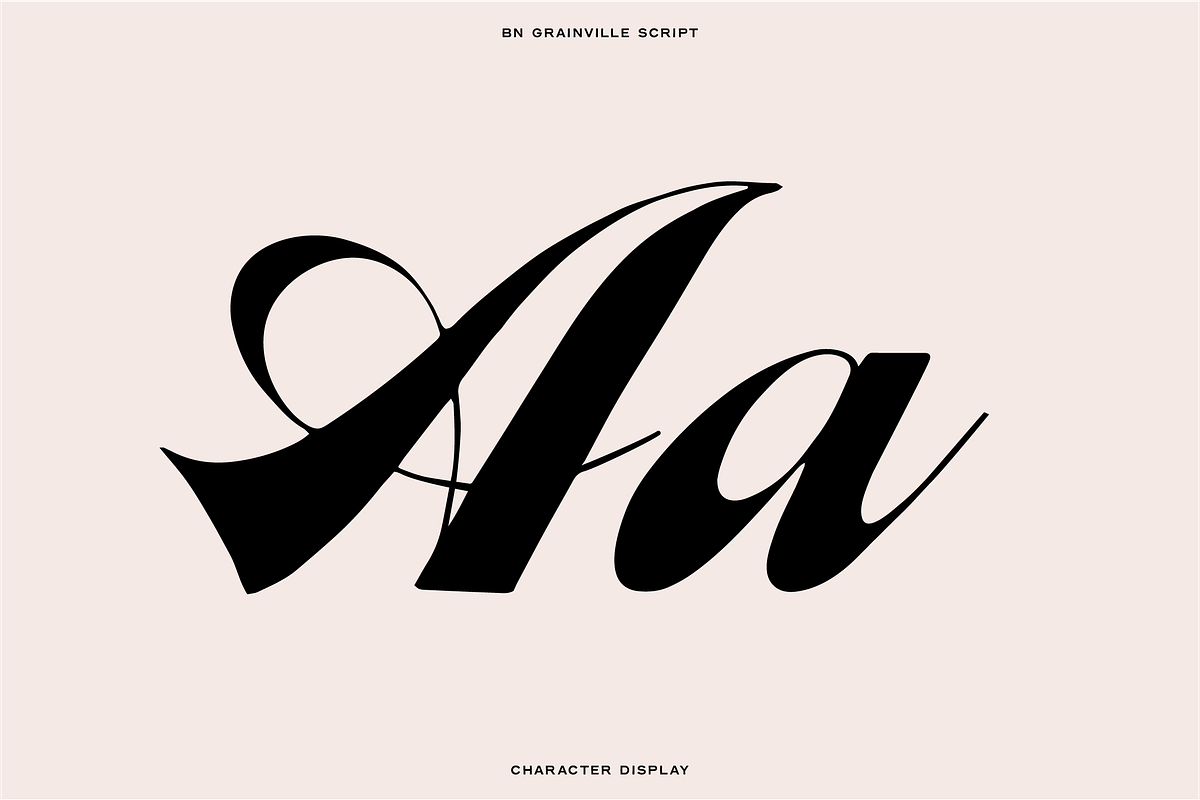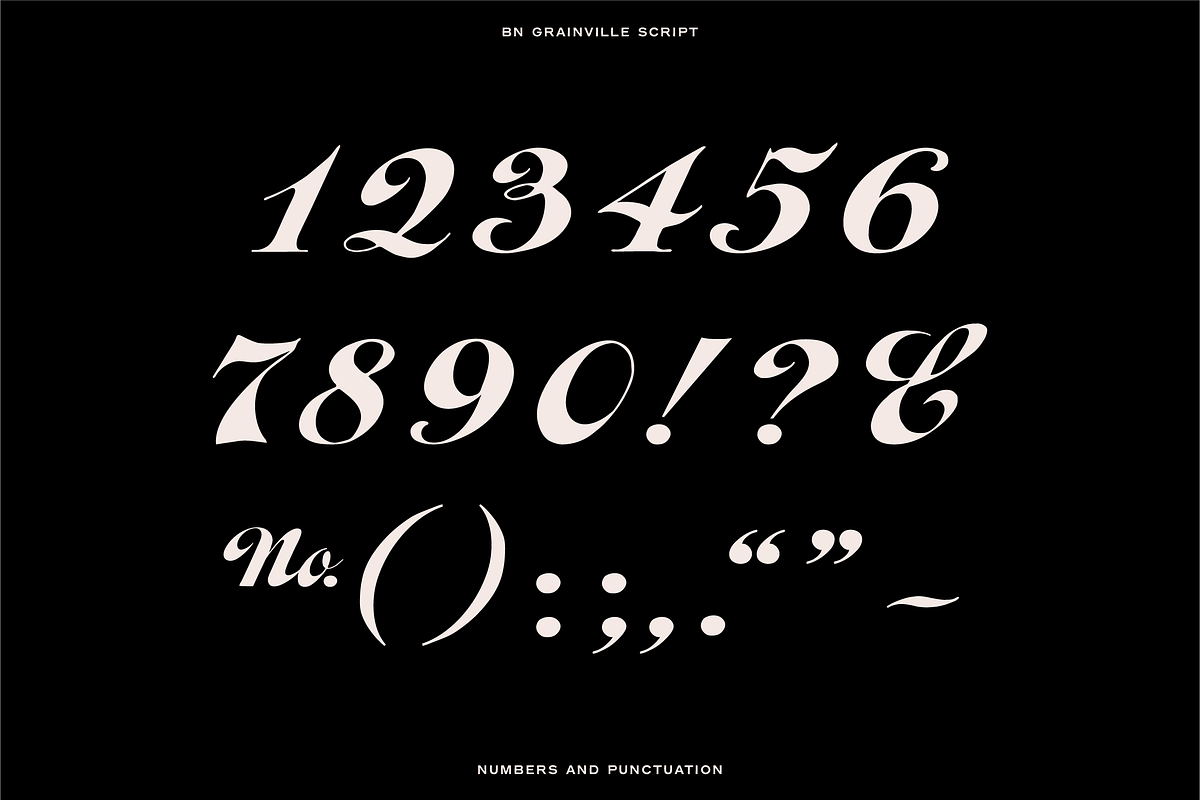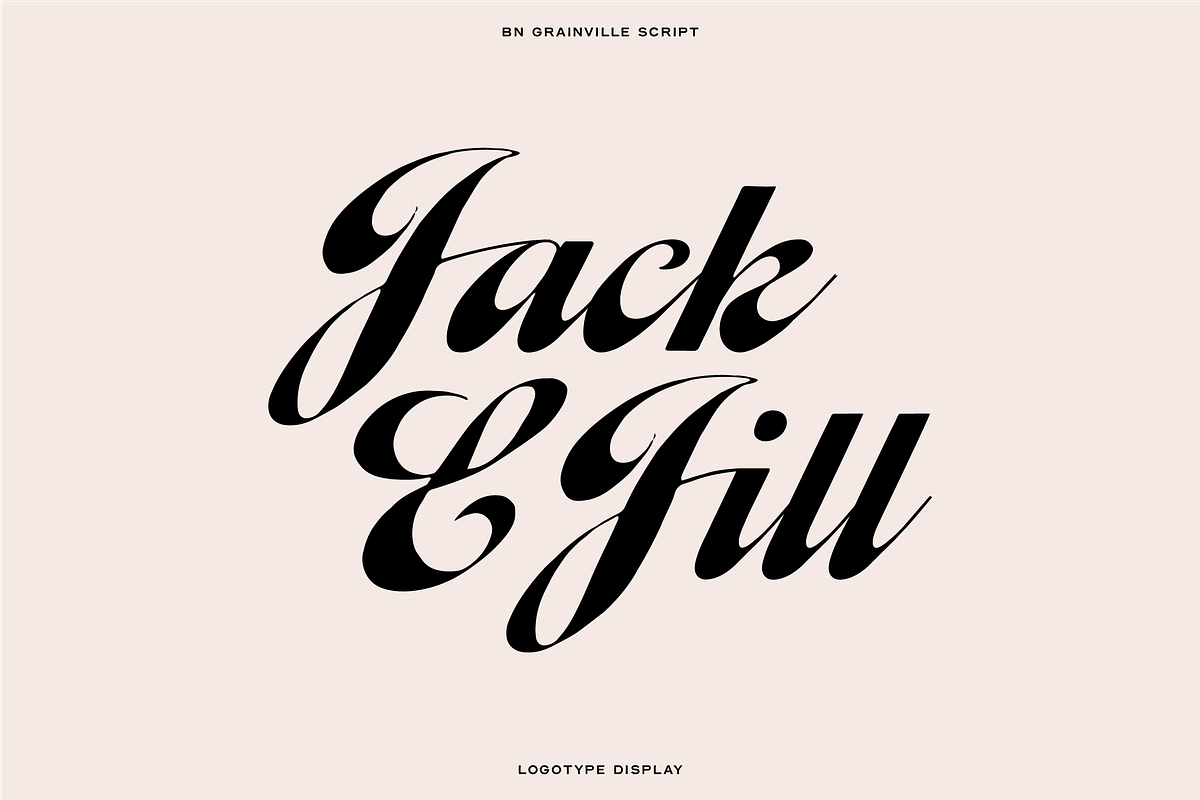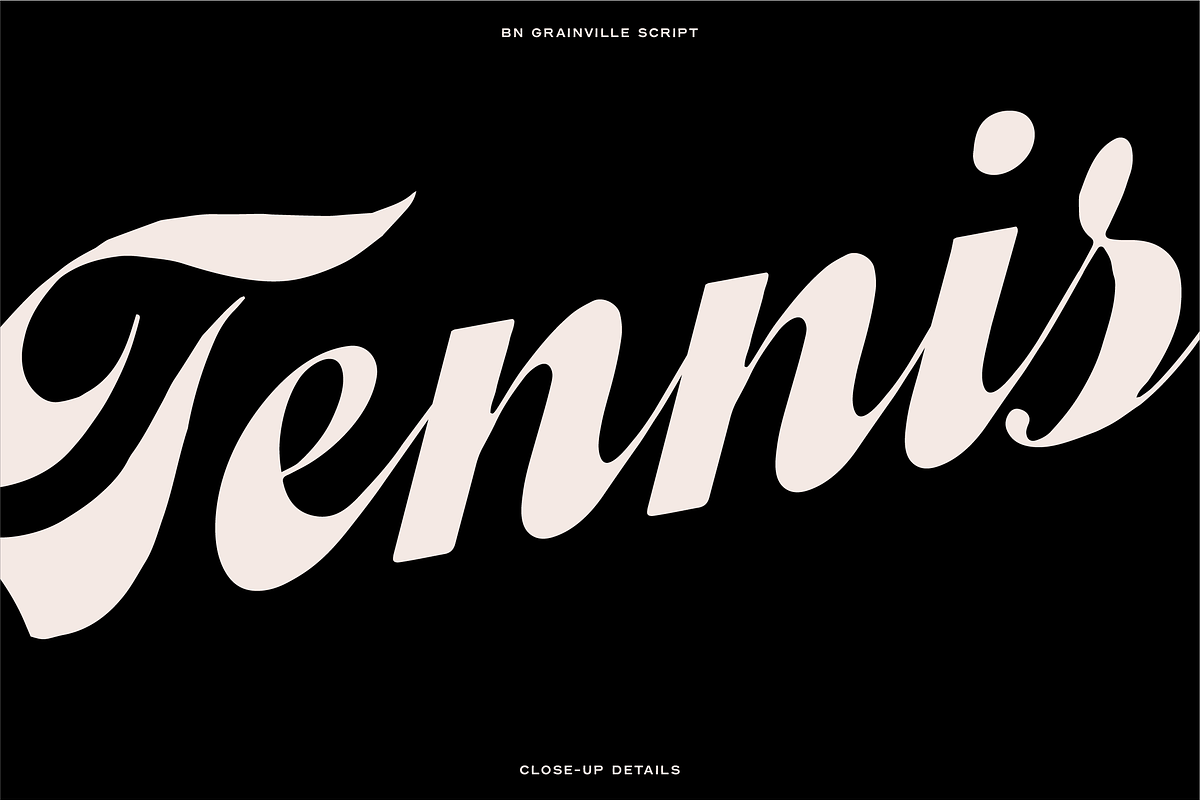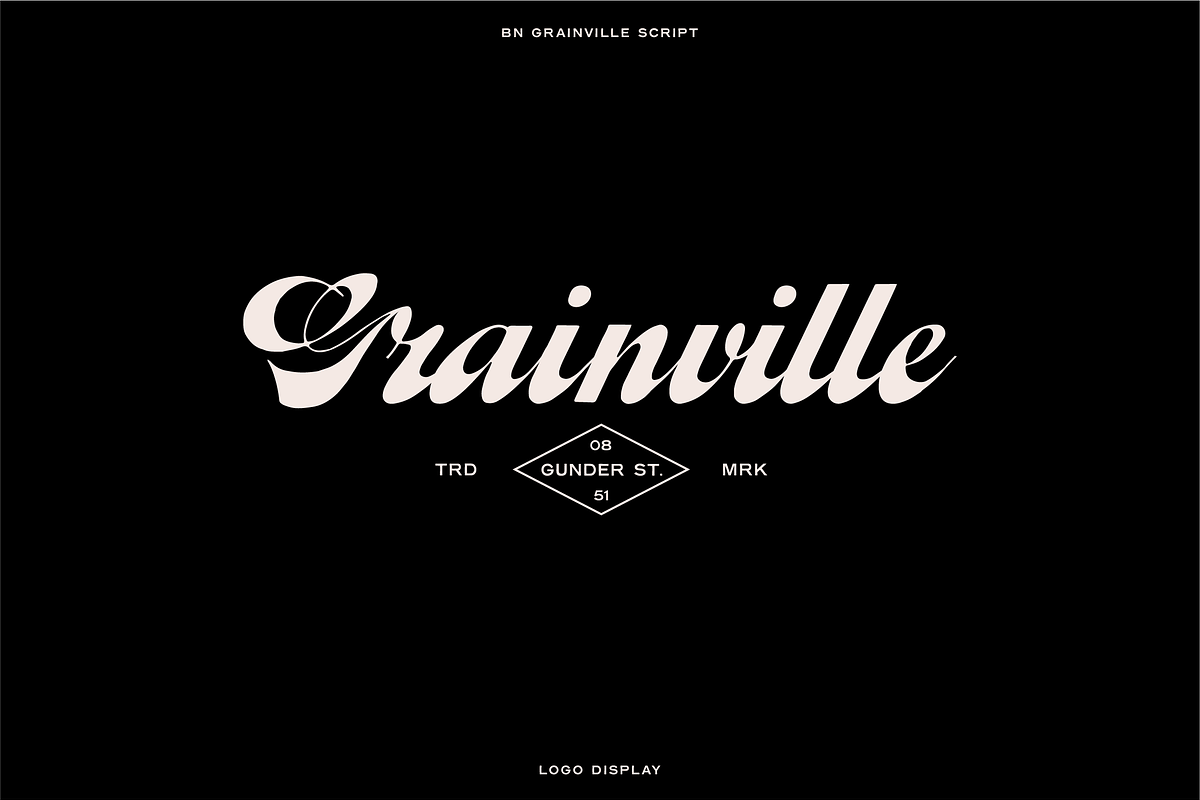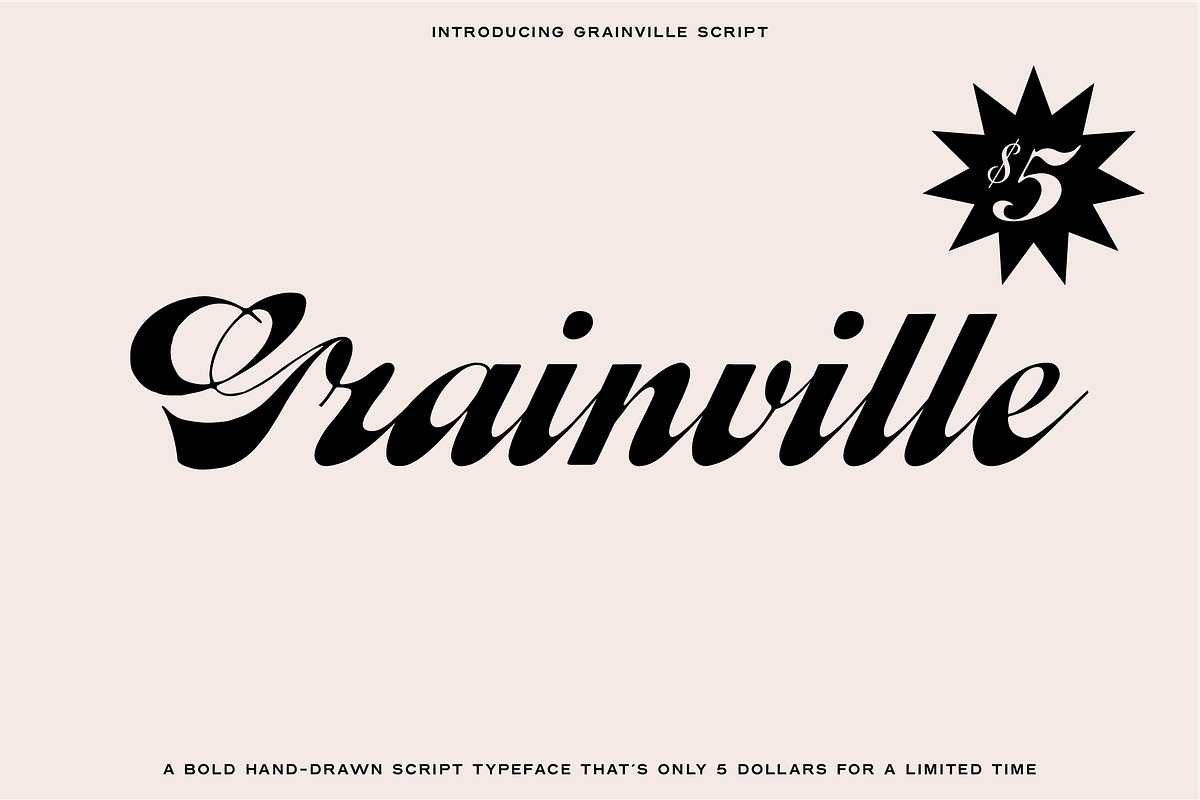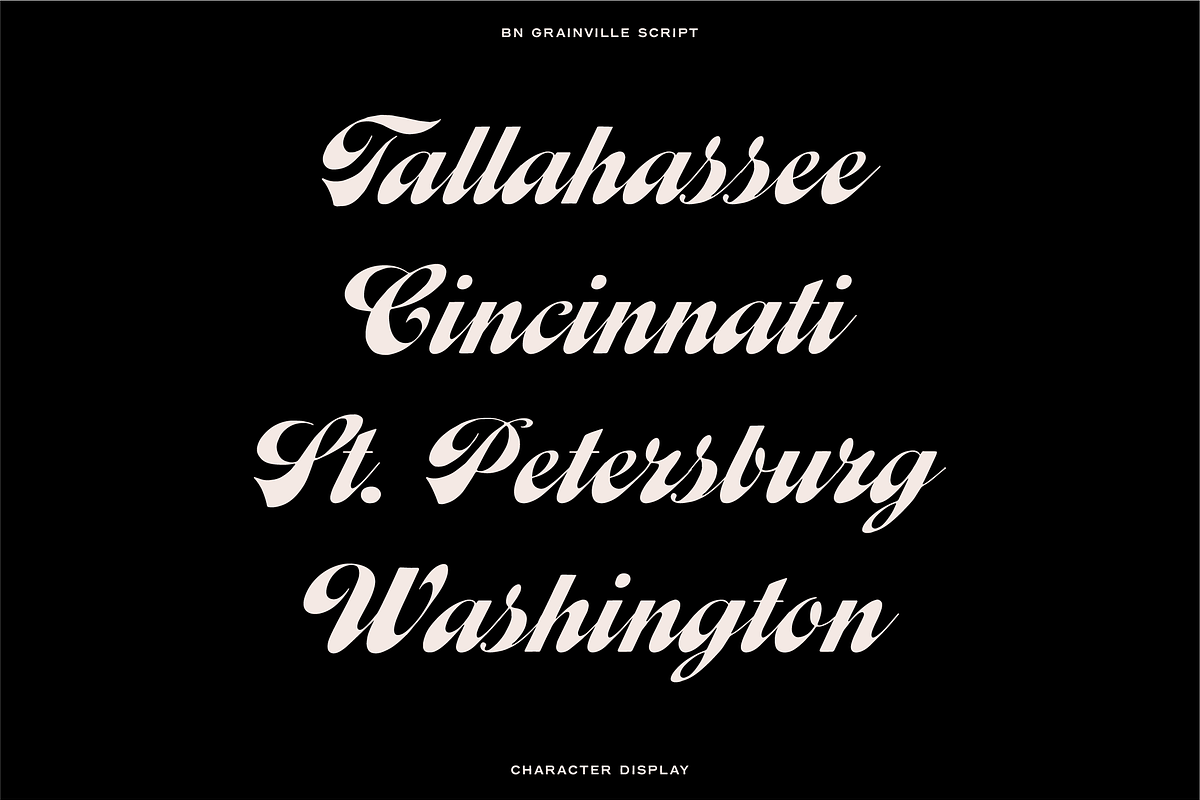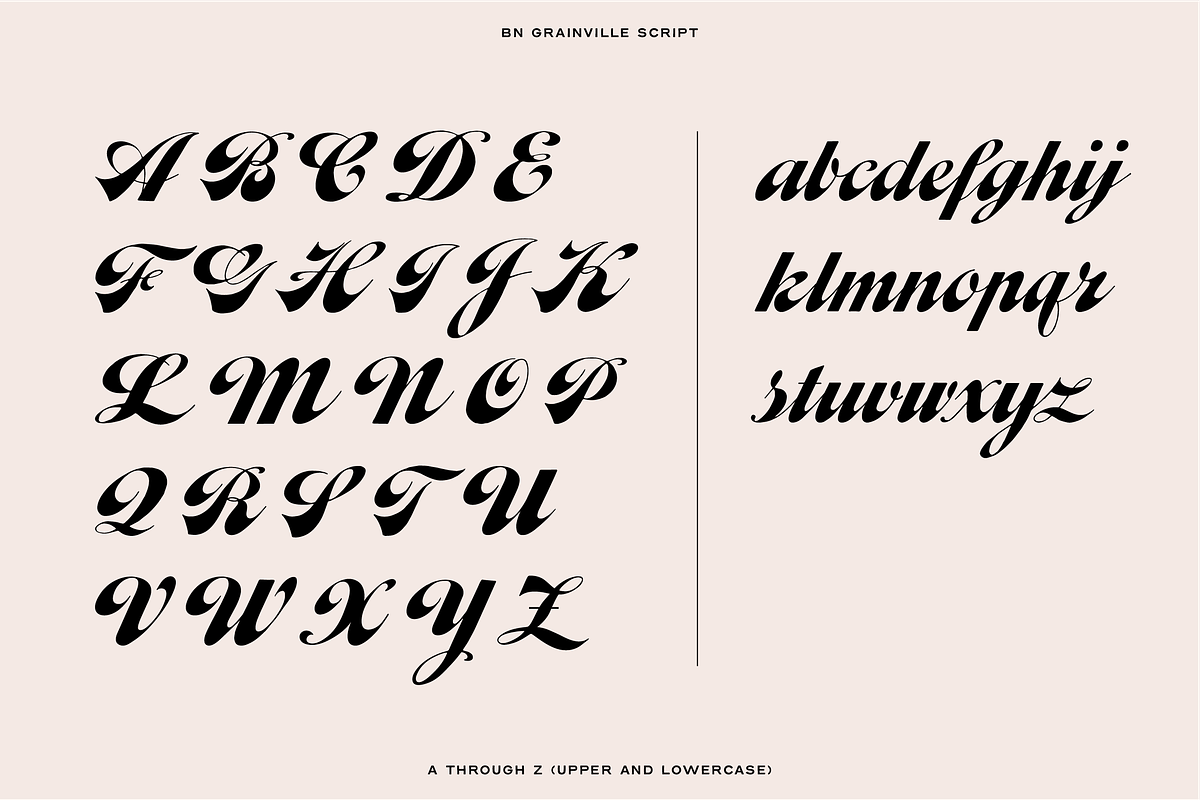
Grainville Script Font
Introducing Grainville Script!
A bold hand-drawn script typeface that's great for logos and display purposes. Purchase now for only $5, a limited time offer!
Upper & Lowercase Letters
Numerals and Essential Punctuation
Hand-Drawn Look & Feel
- Upper & Lowercase Letters
- Numerals and Essential Punctuation
- Kerned & Spaced
- Hand-Drawn Look & Feel
Why Grainville Script Font is worth a look
Grainville Script Font by Bnick fits naturally into Branding, posters, packaging, typography.